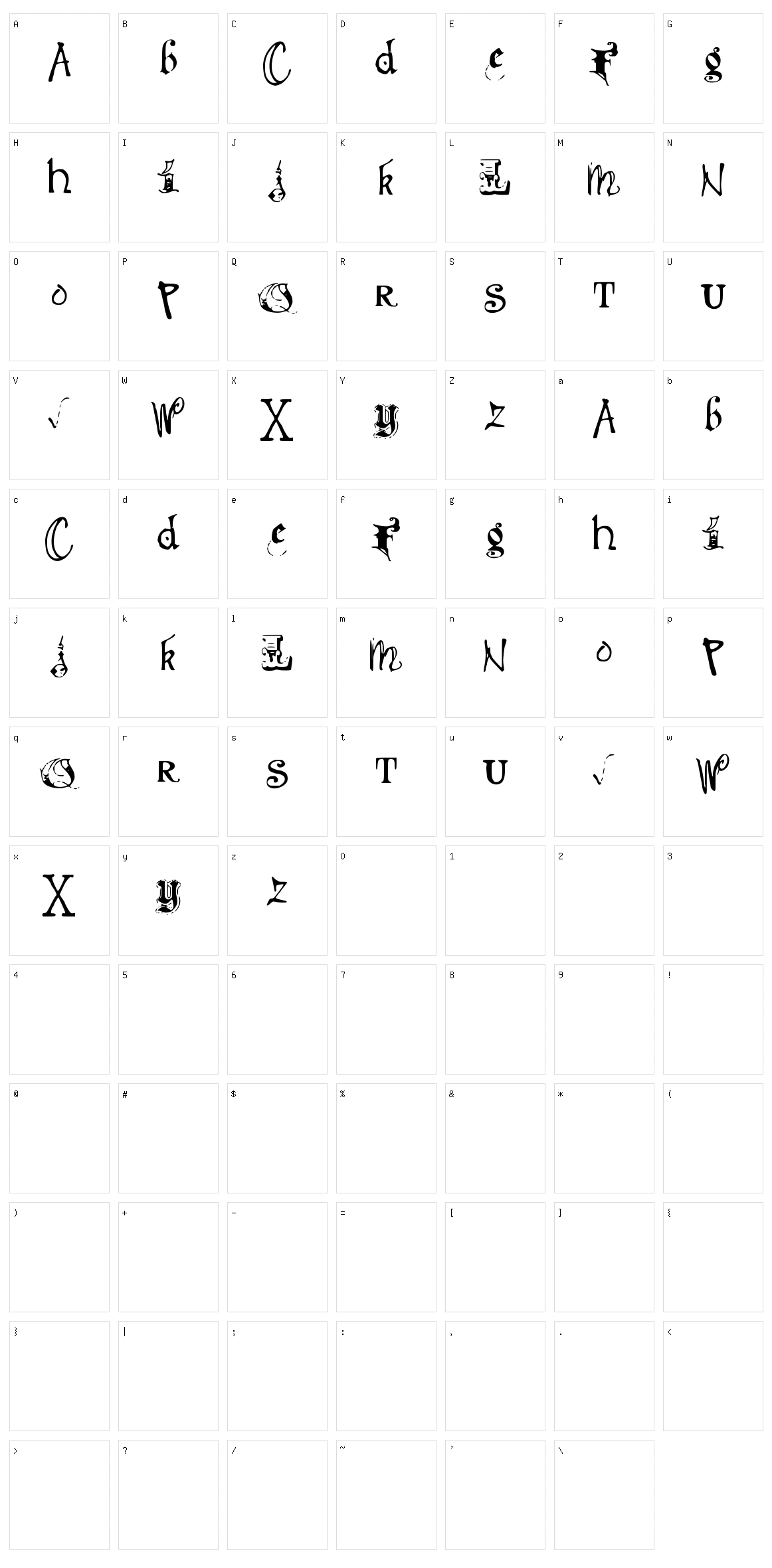
The free font Deb Mixed Fancy is carefully designed by Deb Kerkhof, showcasing a thoughtful balance of creativity and usability and falls under the Distorted font style. When you download the ZIP file, it contains only 9.06 KB of font files, making it lightweight and quick to download. Please review the license details below to understand permitted usage and distribution rights. If license information is not available, we recommend using this font for personal projects only or contacting the author directly for commercial usage permissions.